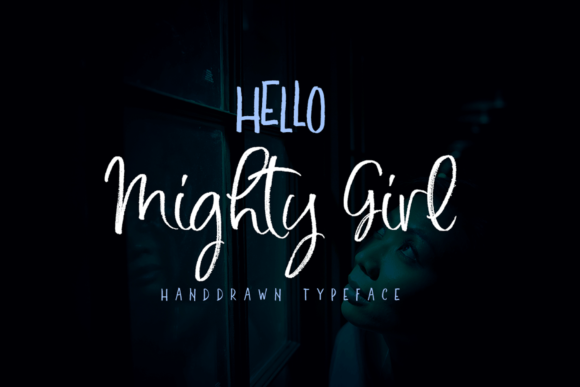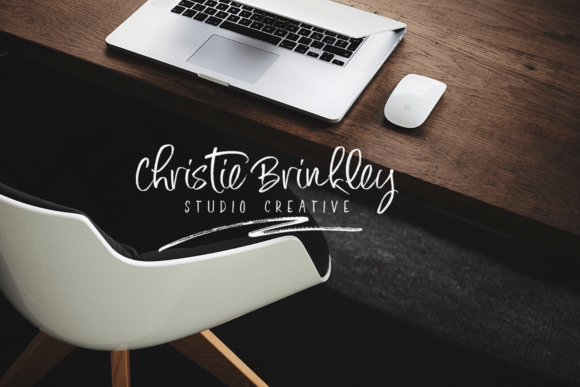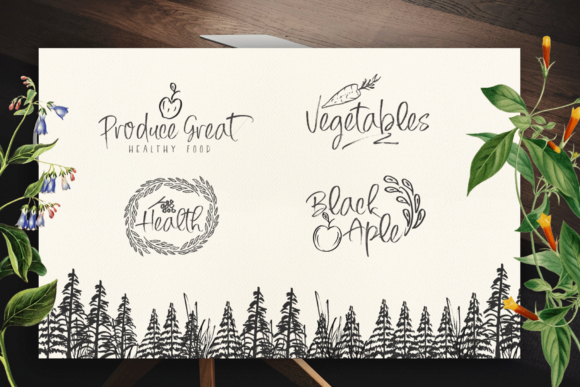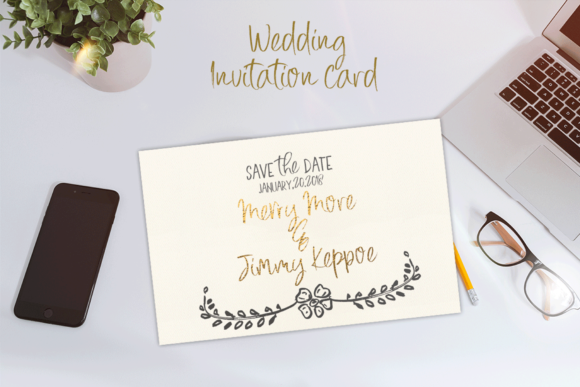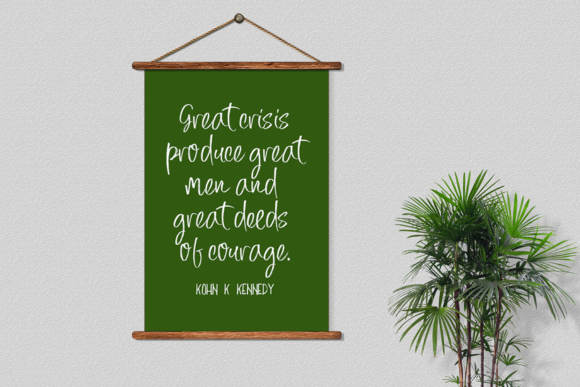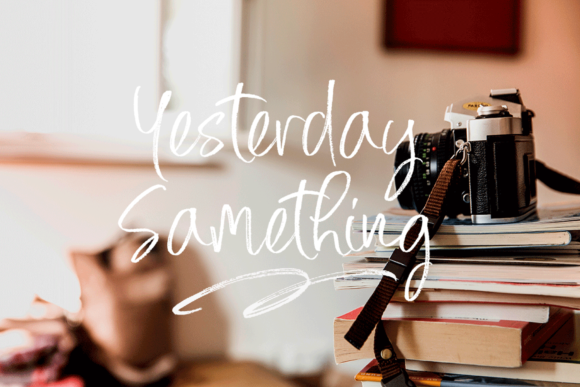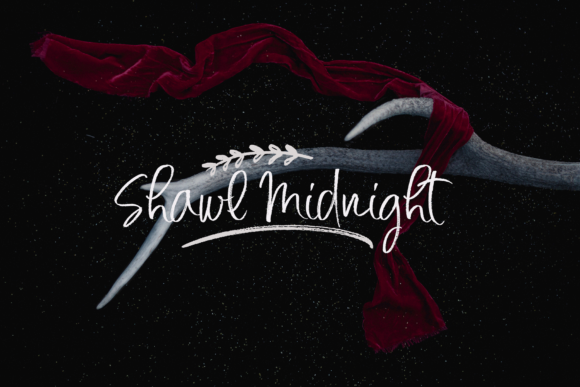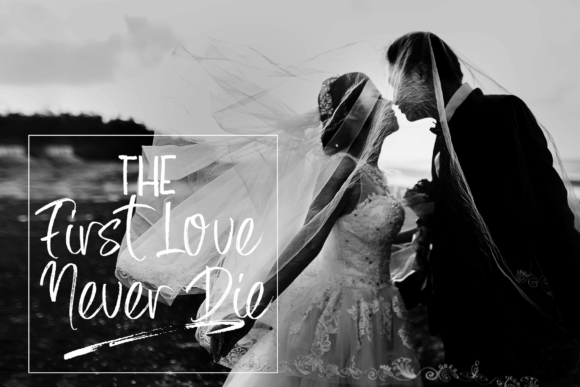
Mighty Girl Font
About Mighty Girl Font
Mighty Girl duo is a match made in heaven. This handwritten font is the perfect fit for all of your logos, branding, social media, and crafty DIY projects.